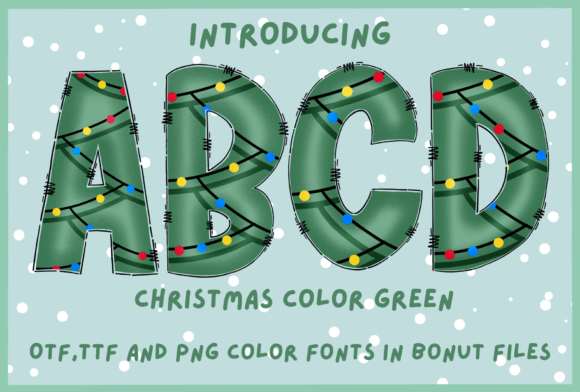
Introducing the Christmas Color Green Font, the perfect addition to your font collection! Created by Itme_digitalart, this colorful font is the ultimate choice for fashion bloggers looking to make a statement.
Christmas green is more than just a font, it's a super cute handwriting style that adds a touch of charm to any project. Whether you're teaching, decorating presentations, or creating eye-catching advertisements, this font is sure to impress.